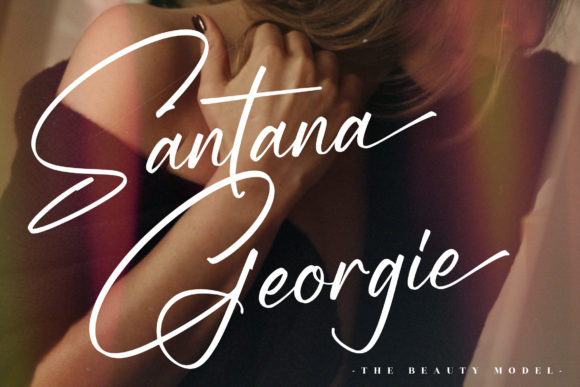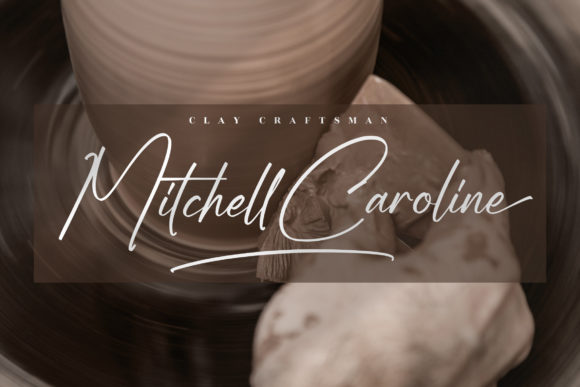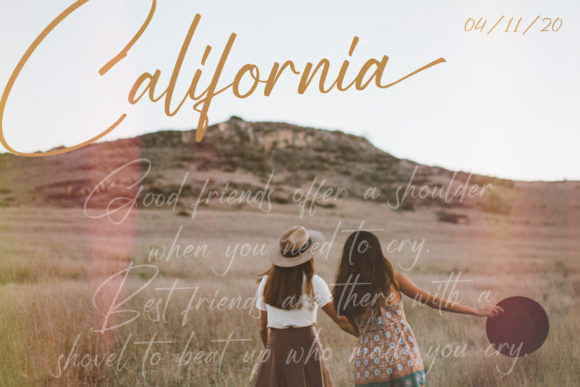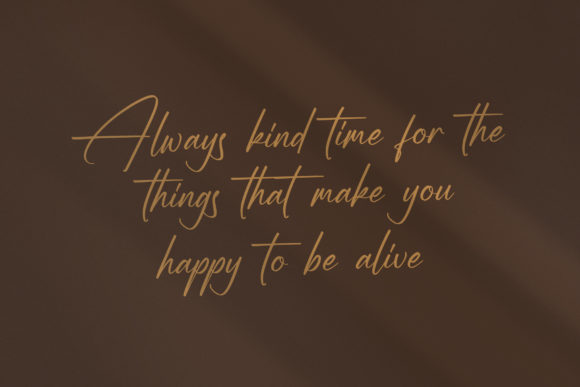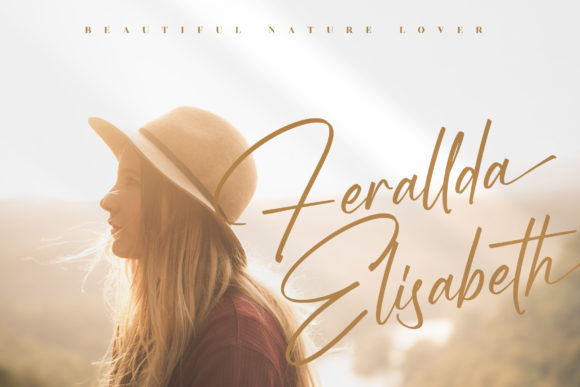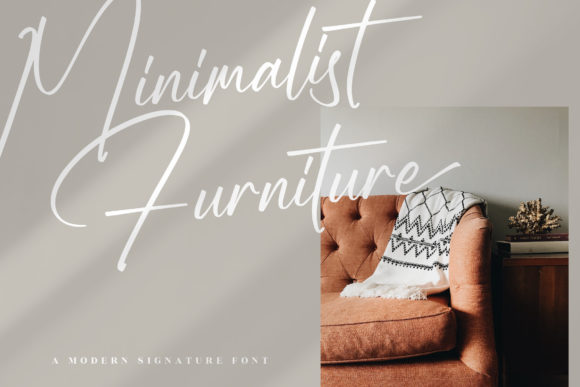
Introduction to Sallinas Franklyn Font
For designers, the right font can be the difference between a good design and a great one. And that’s exactly where Sallinas Franklyn Font comes in – a delicate and stylish script font that’s about to become your new go-to design resource. With its beautiful, well-balanced characters, this font is the perfect match for a wide range of designs, from elegant wedding invitations to whimsical children’s books.
Key Features of Sallinas Franklyn Font
- High-quality design resource ideal for creative projects, offering a unique blend of elegance and sophistication.
- Comes with a transparent background, allowing for seamless integration into various design elements and backgrounds.
- Features a stunning resolution of 1024×1024 pixels, guaranteeing crisp and clear text display.
- Designed with a focus on legibility and readability, making it perfect for body text and titles in various creative projects.
- Includes a comprehensive character set, covering a wide range of languages and special characters.
Honest Review: Sallinas Franklyn Font
As a designer, I’m always on the lookout for high-quality design resources to elevate my creative projects. The Sallinas Franklyn Font caught my attention with its elegant and sophisticated feel. Upon closer inspection, I found it to be a solid addition to any design library.
- ✨ Unique and stylish aesthetic: Sallinas Franklyn Font brings a touch of sophistication to any design project.
- ✨ High-quality font files: The font files are crisp and clear, making it perfect for printing or digital use.
- ✨ Transparent background: This feature allows for easy background removal, making it a great resource for designers who need flexibility.
- ⚠️ Limited font styles: While the font is elegant, it’s limited to a single style, which may not be suitable for projects that require a lot of font variation.
- ⚠️ Not ideal for very small text: Due to its elegant design, Sallinas Franklyn Font may not be the best choice for very small text, as it can become difficult to read.
Overall, I’m impressed with the Sallinas Franklyn Font. While it has its limitations, it’s a solid addition to any design library and a great resource for designers looking for a high-quality, elegant font for their creative projects.
Tips for Getting the Most Out of Sallinas Franklyn Font
To get the most out of this high-quality font, use it for creative projects that require a unique and elegant touch. Consider pairing it with a transparent background to create a visually appealing design. Experiment with different font sizes and styles to add depth and interest to your design.
The Sallinas Franklyn Font is ideal for designing business cards, wedding invitations, and other creative projects that require a touch of sophistication. Its elegant design and transparent background make it a valuable design resource for any creative project.